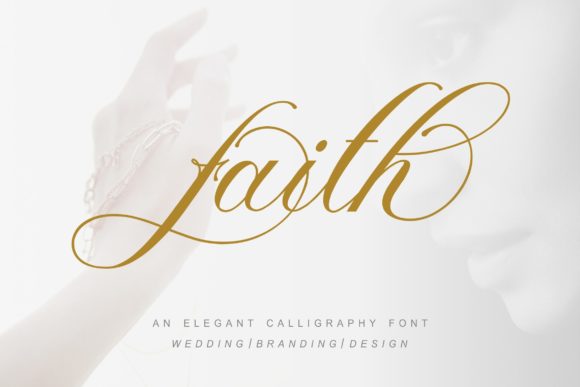
Discover the Elegance of Faith Font: A Beautiful Script Font for Your Designs
In the world of typography, a font can make or break a design. For designers and crafters looking for a touch of elegance and sophistication, Faith Font is an exquisite script font that stands out from the crowd. With its beautiful and balanced character, Faith Font fits well with a large design pool, making it a versatile choice for various projects.
What Makes Faith Font Special?
Faith Font boasts a stunning script style that exudes elegance and refinement. Its characters are carefully crafted to provide a beautiful and balanced look, making it perfect for designs that require a touch of sophistication. Whether you’re working on a logo, branding materials, or digital products, Faith Font is sure to impress.
One of the standout features of Faith Font is its PUA (Private Use Area) encoding. This means that you can access all of the glyphs and swashes with ease, giving you greater flexibility and creative control over your designs. With PUA encoding, you can effortlessly navigate through the font’s various characters and decorative elements, making it easier to create stunning designs.
Faith Font is a dream come true for designers and crafters looking for a high-quality script font. Its exquisite style and versatility make it an excellent choice for a wide range of projects, including:
- Digital products, such as ebooks and courses
- Print materials, like brochures and posters
- Web design and development projects
Benefits of Using Faith Font
By incorporating Faith Font into your designs, you can enjoy several benefits, including:
- Elegance and sophistication: Faith Font adds a touch of refinement and elegance to your designs, setting them apart from the competition.
- Versatility: With its PUA encoding and wide range of characters, Faith Font can be used for various design projects.
- Easy to use: Faith Font is designed to be user-friendly, making it easy to access and use its various glyphs and swashes.
Tips for Using Faith Font Effectively
To get the most out of Faith Font, here are some tips to keep in mind:
- Pair it with complementary fonts: Combine Faith Font with other fonts that complement its style to create a visually appealing design.
- Experiment with different sizes and colors: Play around with different font sizes and colors to add depth and interest to your design.
- Use it sparingly: While Faith Font is beautiful, it’s best to use it sparingly to avoid overwhelming your design.
Faith Font is a stunning script font that offers elegance, versatility, and ease of use. With its PUA encoding and beautiful character design, it’s perfect for designers and crafters looking to add a touch of sophistication to their projects. Whether you’re working on a logo, branding materials, or digital products, Faith Font is an excellent choice. So why not give it a try and see how it can elevate your designs?